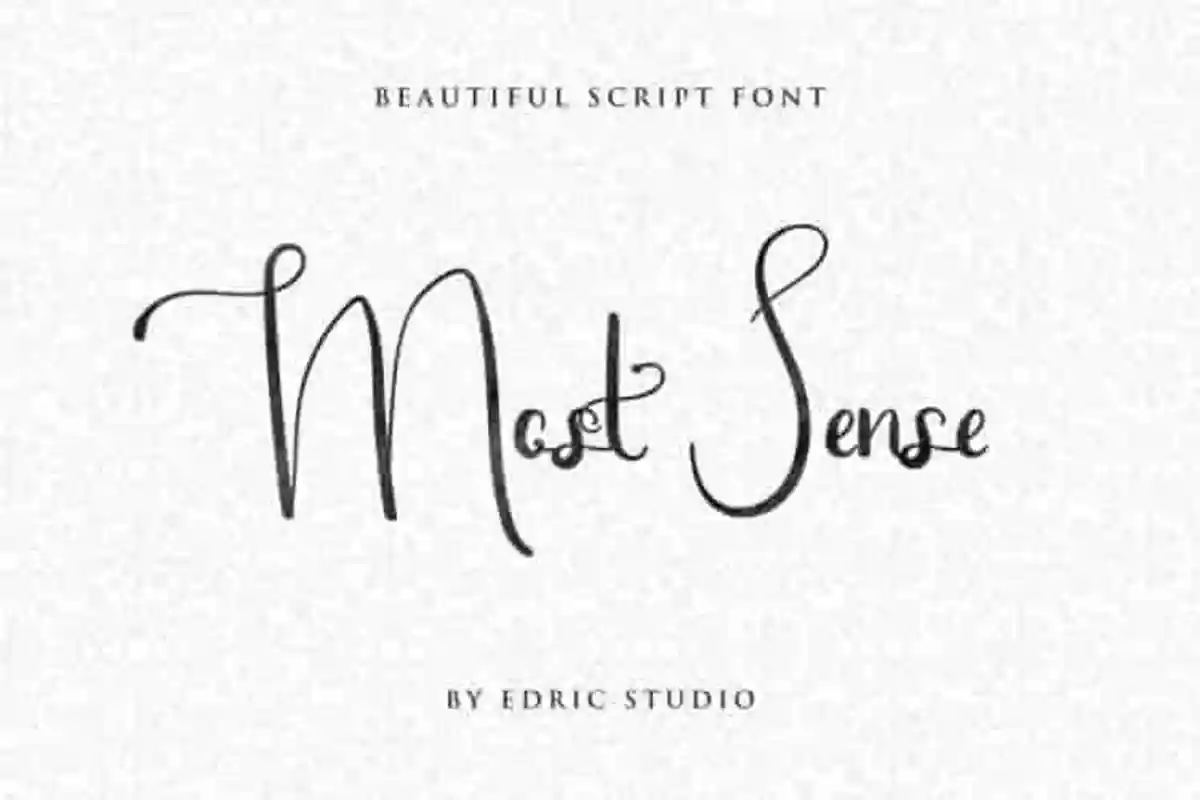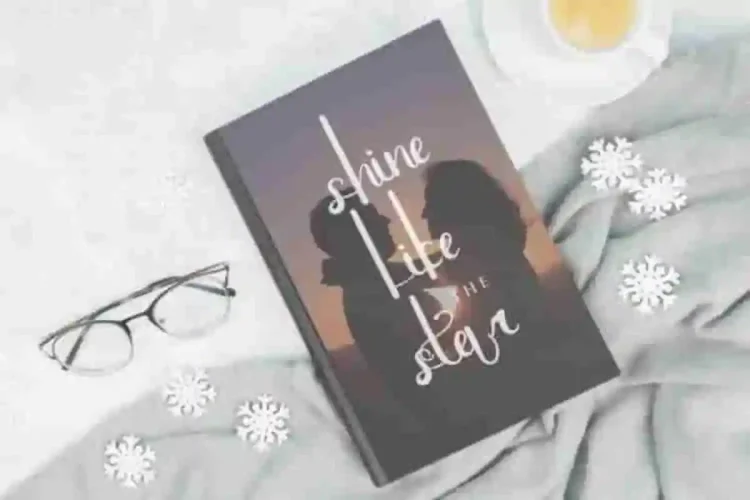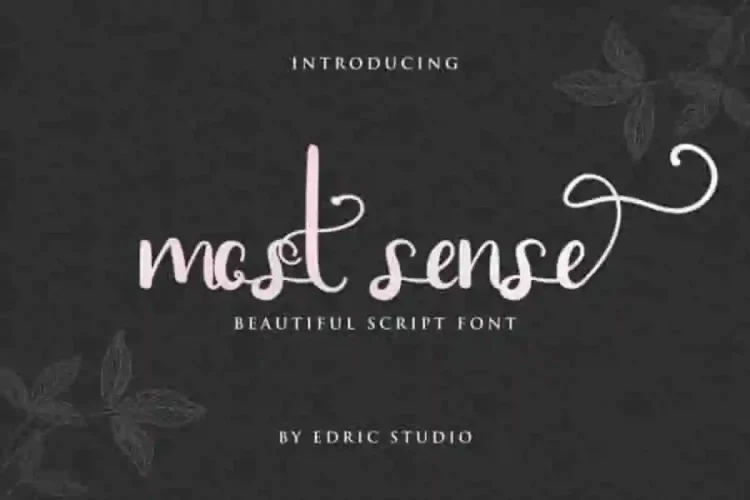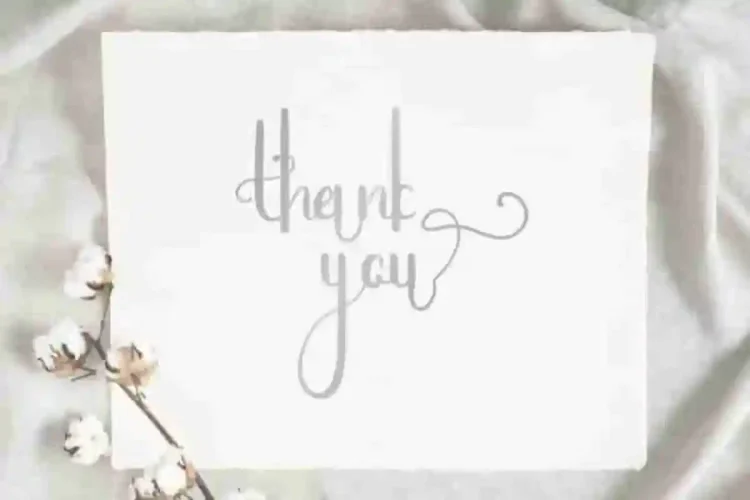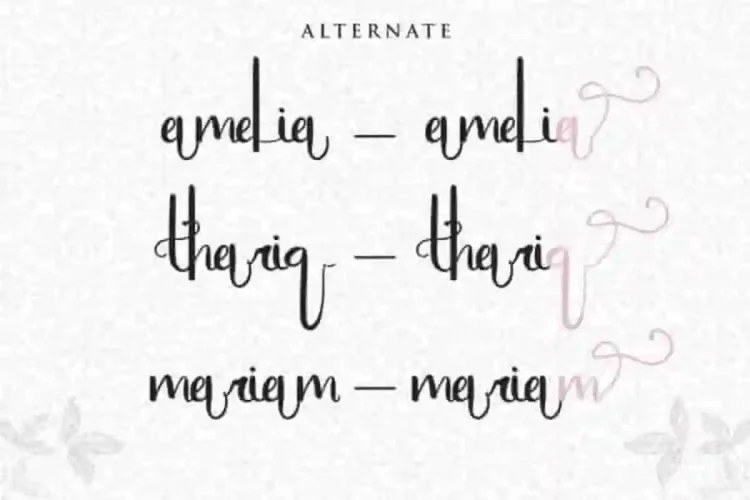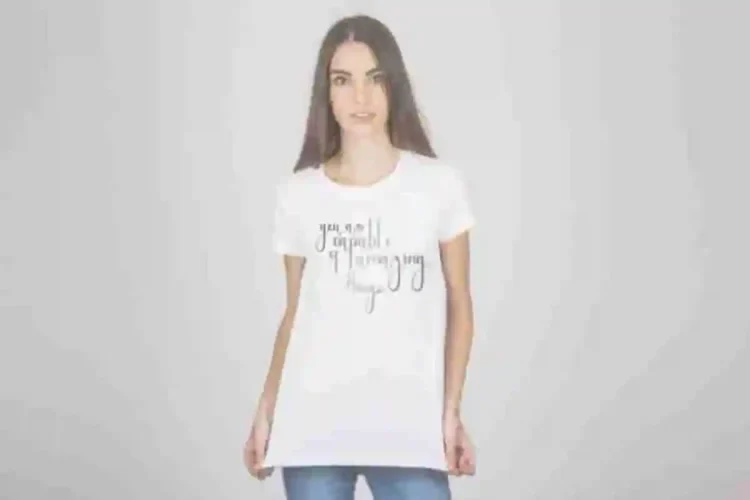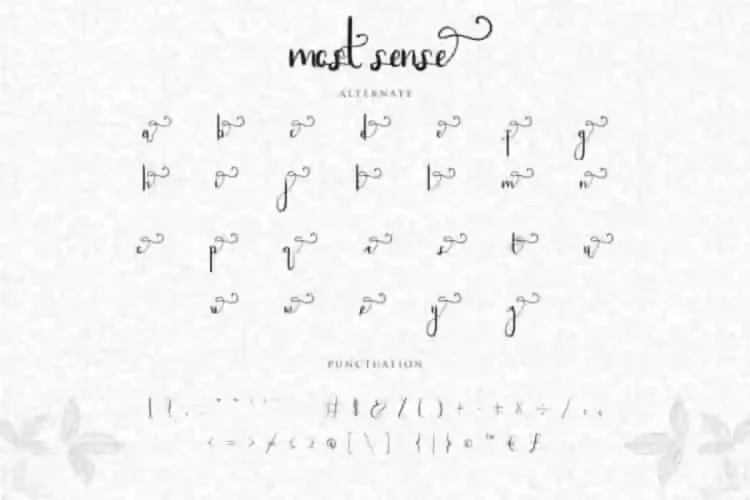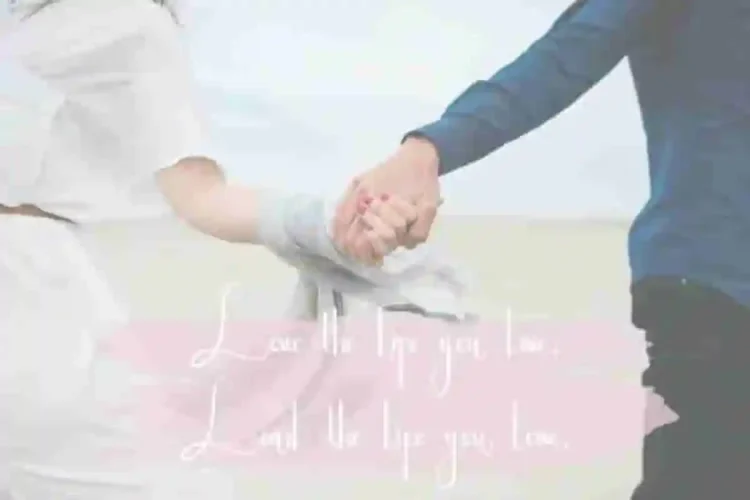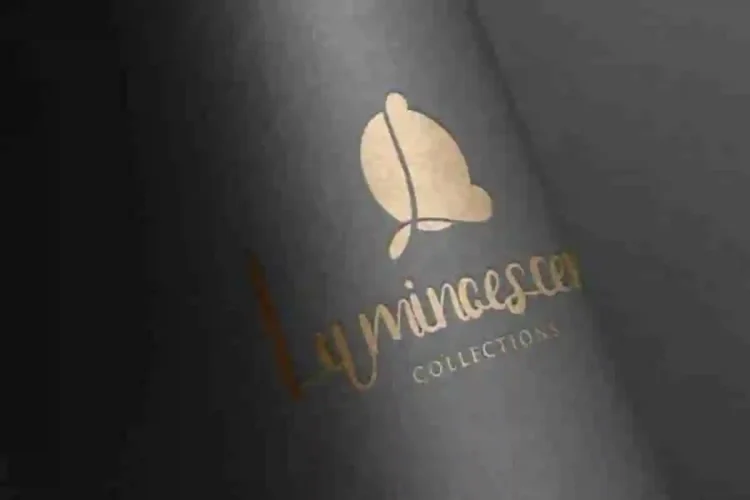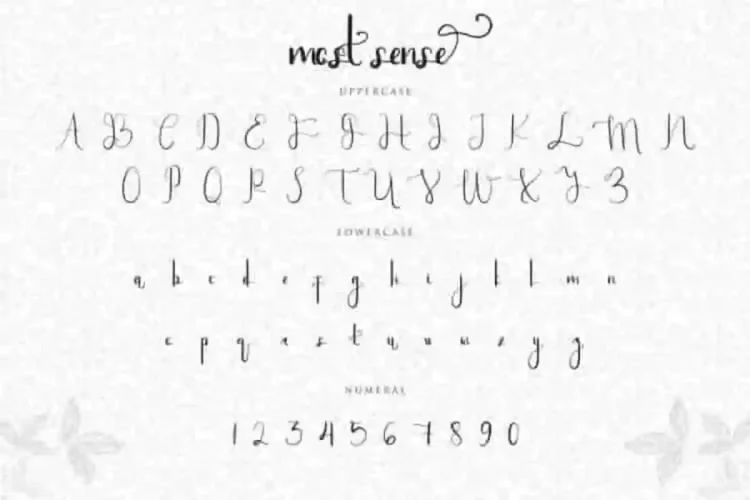
Most Sense Calligraphy Script Font
Edricstudio present to you : Most Sense Calligraphy Script Font
This is a script font, handcrafted from our Studio here in, Indonesia. The artists/designers of this beautiful tyeface is Saila and Sarah Suci.
Most Sense Calligraphy Script Font is a beautiful script typeface with calligraphy style. This font has a stunning characters set, perfectly managed with well spaced and kerning. The theme style of this font will elegant,  vintage, stylish, sophisticated and classic brush calligraphic style. You wont find any where else, the font like Most Sense Calligraphy Script Font.
Most Sense Calligraphy Script Font will be great for any projects including : branding, logo, stationery, business card, signage, flyer, brochure etc. Almost all industries will be match for this typeface: wedding, events, real estate, architect, law firm, florist, gardening, makeup artist, travel, hotel, musician etc.